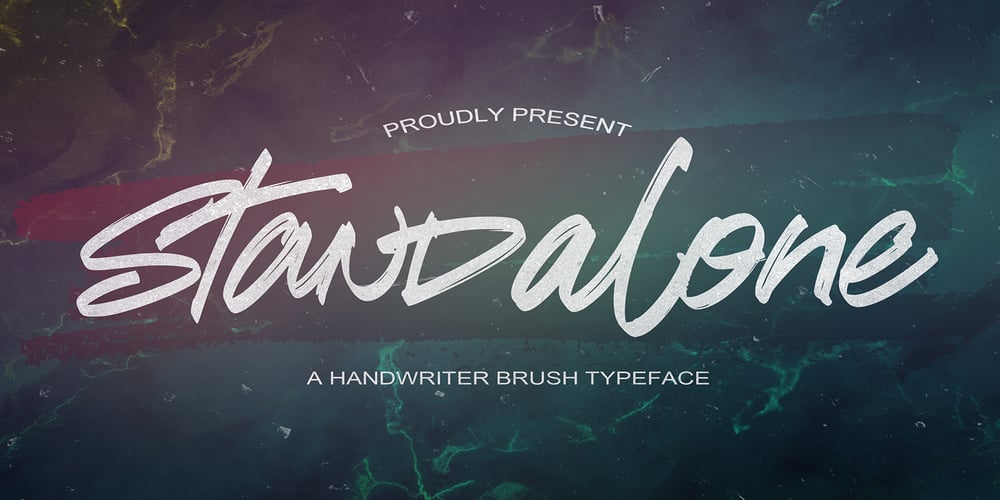
Stand Alone Font Family was designed by Abdul Malik Wisnu, Anang Fibriyanto and published by Gassstype. Stand Alone contains 1 styles and family package options. Introducing Standalone is a handwritten brush font that written casually and quickly. Letters are made with brushes on Procreate. Then crafted carefully drawn into vector format and make it into a font. That is why Standalone has charming, authentic and relaxed characteristic more natural look to your text with a more natural look to your text. You can activate Ligature OpenType panel to make these two styles. It also has many alternatives and ligatures that make your text and design more interesting.Standalone is perfect for homeware designs,branding projects, Logo design, Quotes product packaging